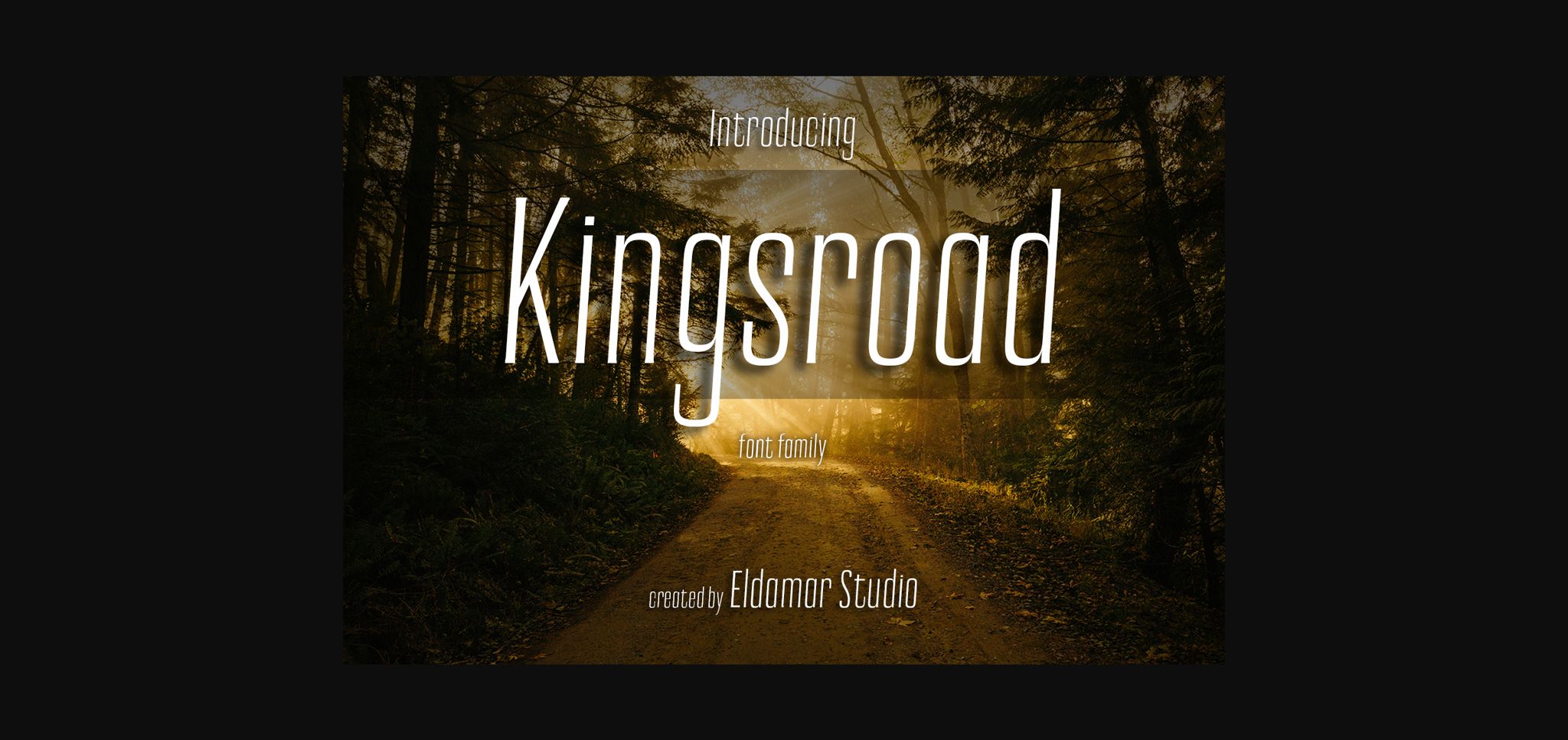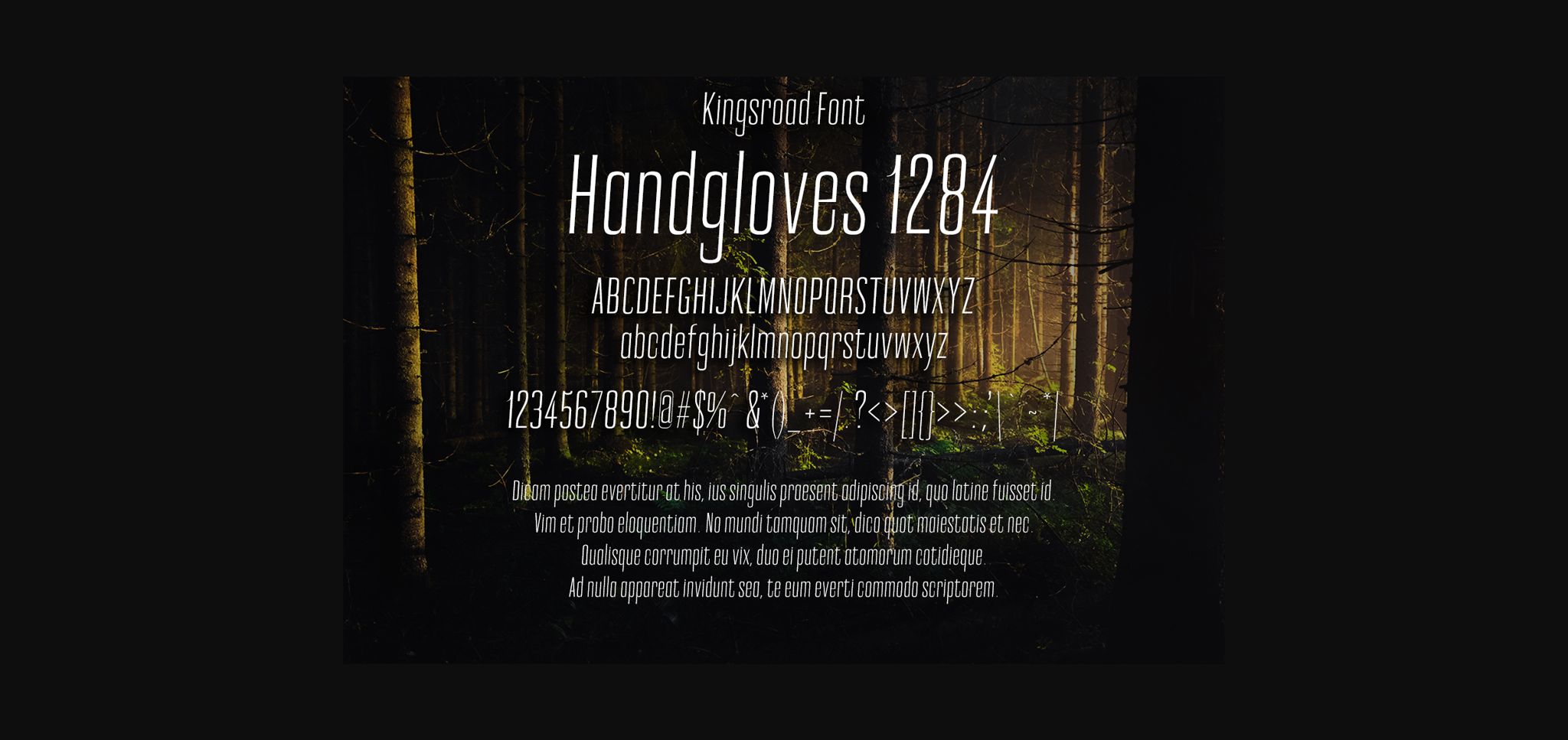
About Kingsroad Font
Kingsroad is a minimal and neat sans serif font. It can easily be matched to an incredibly large set of projects, so add it to your creative ideas and notice how it makes them stand out!